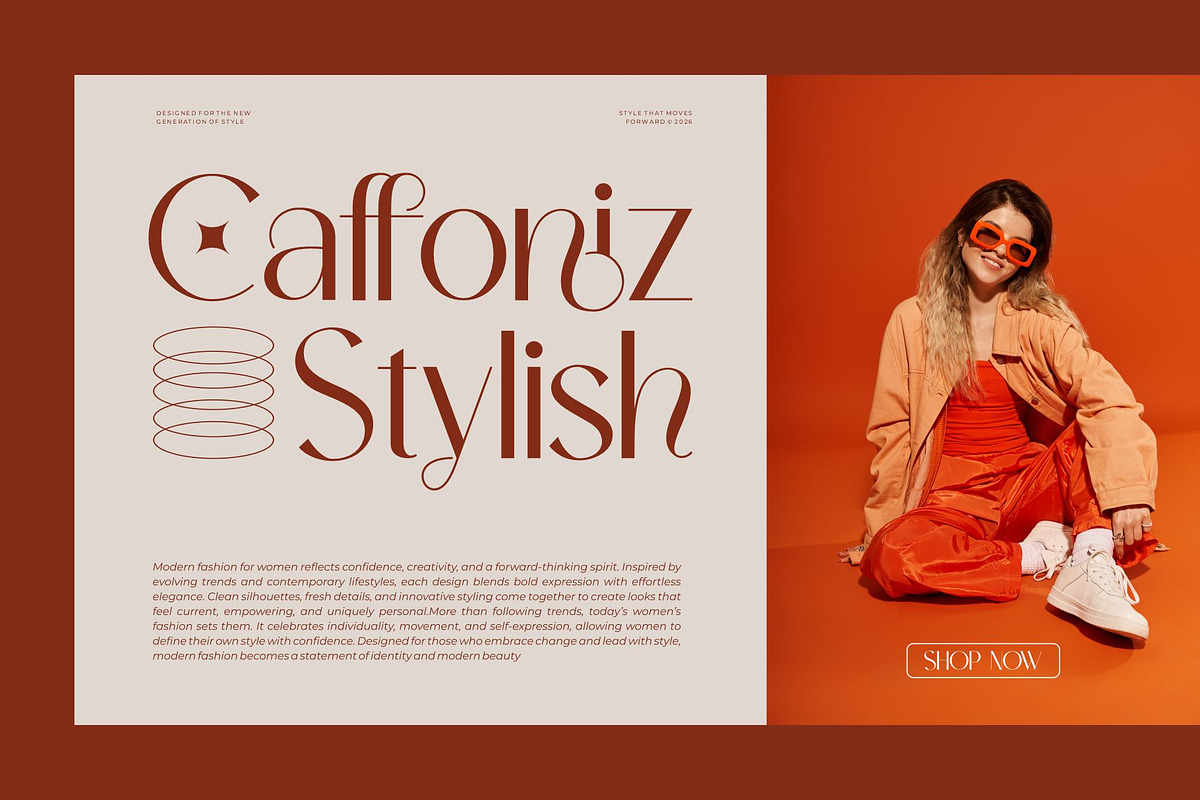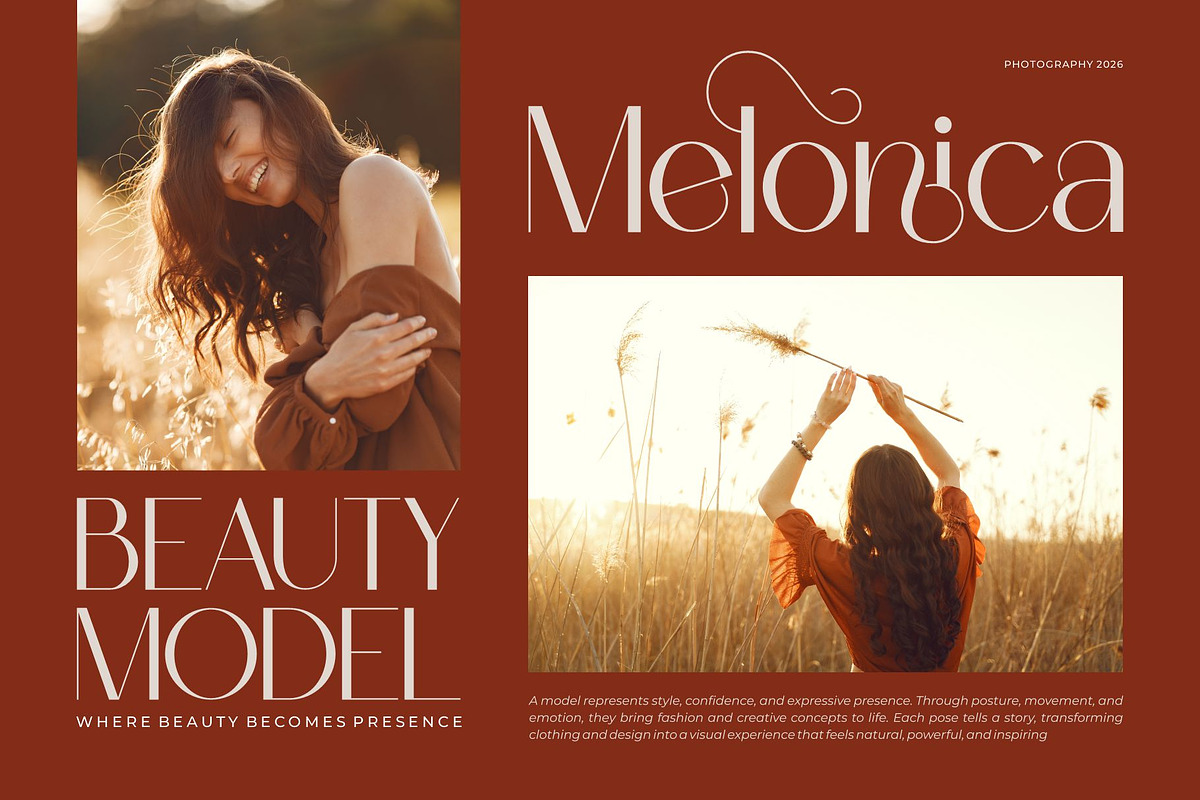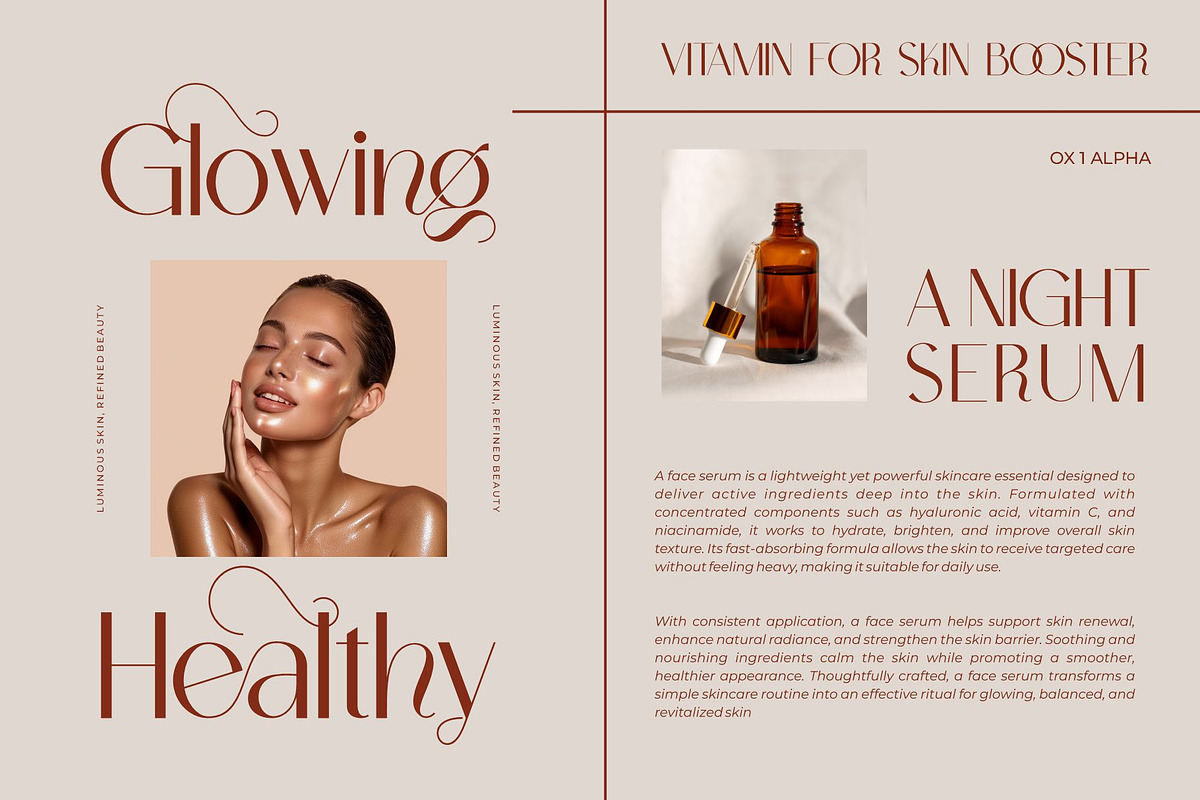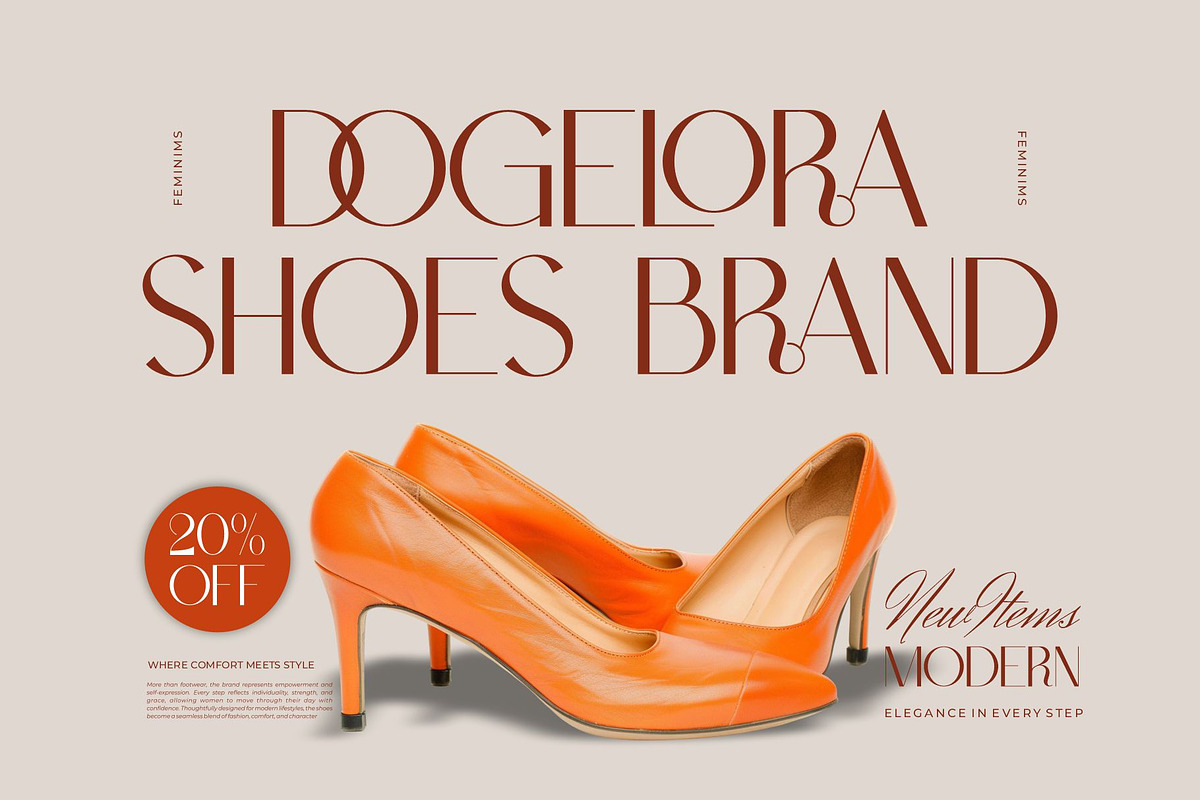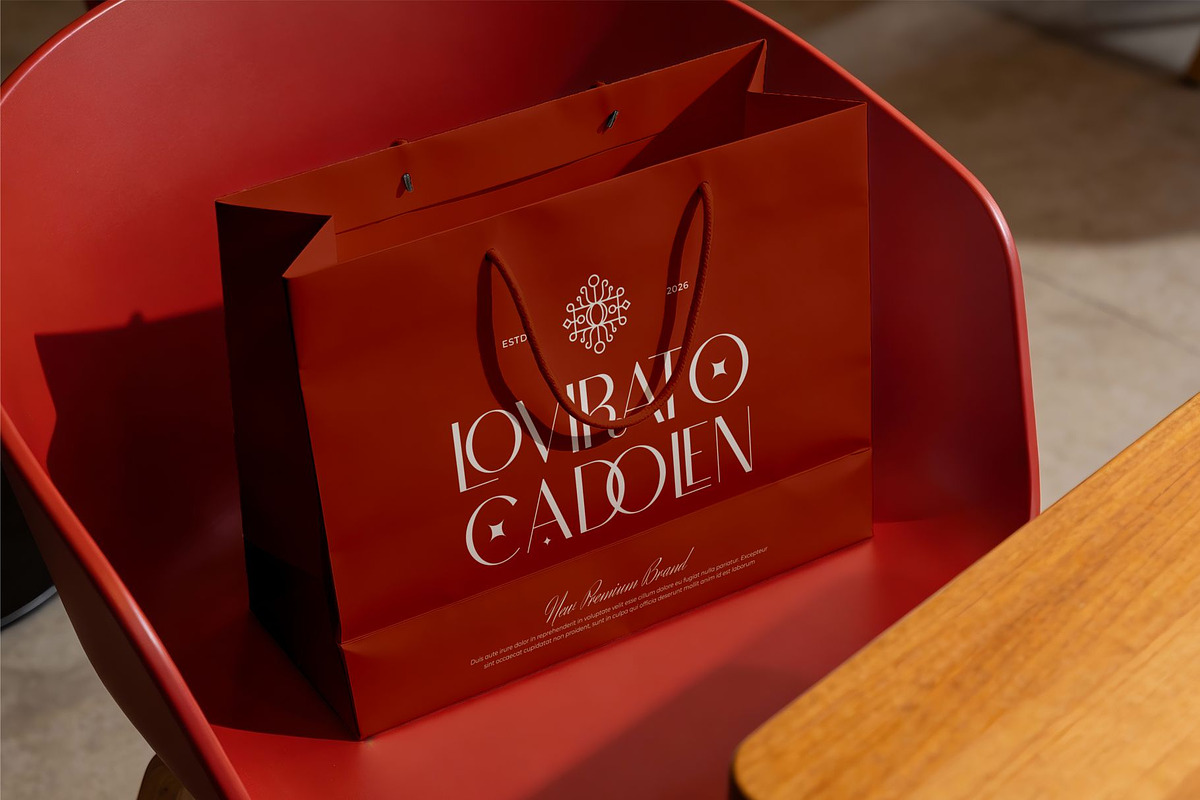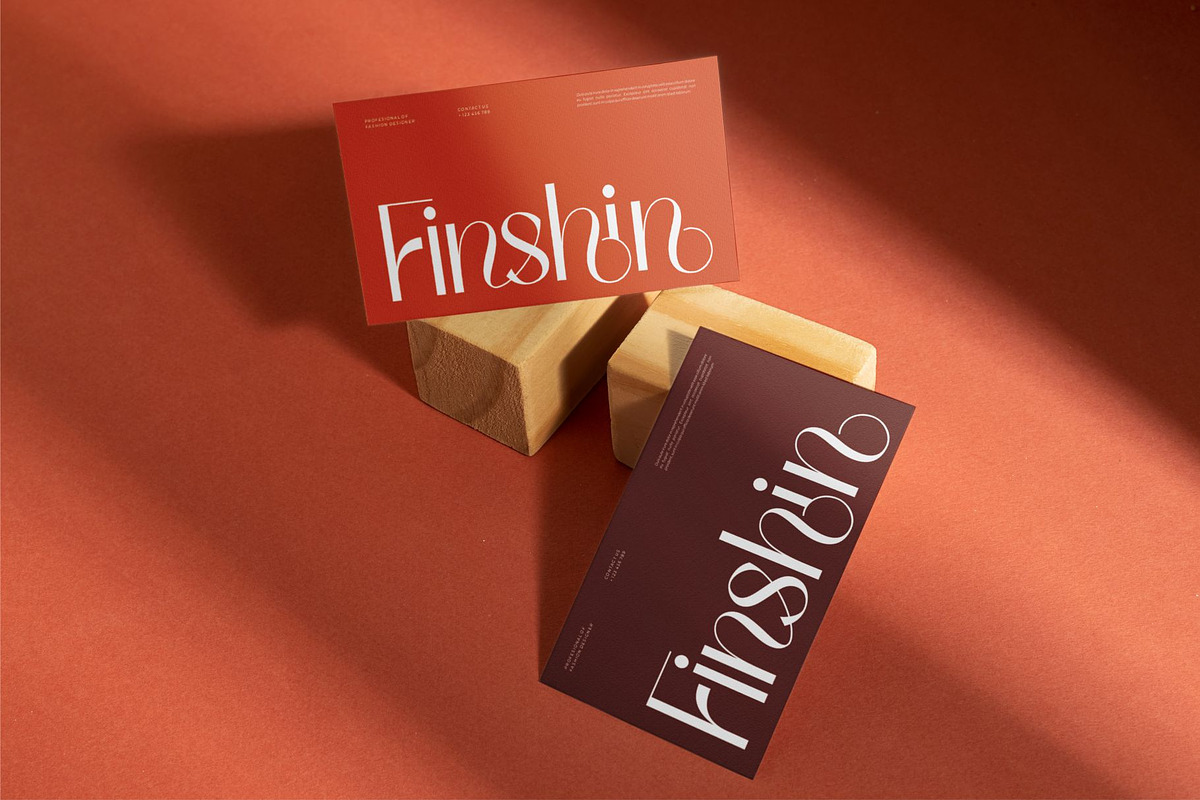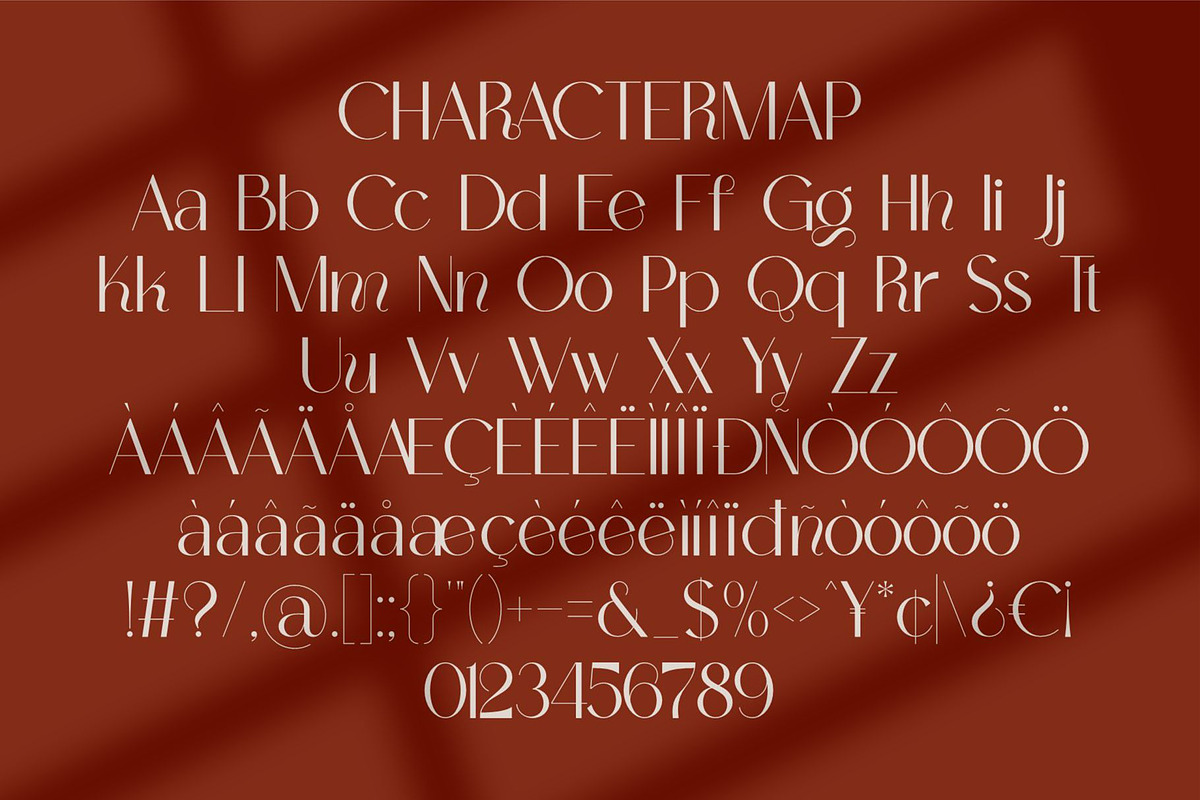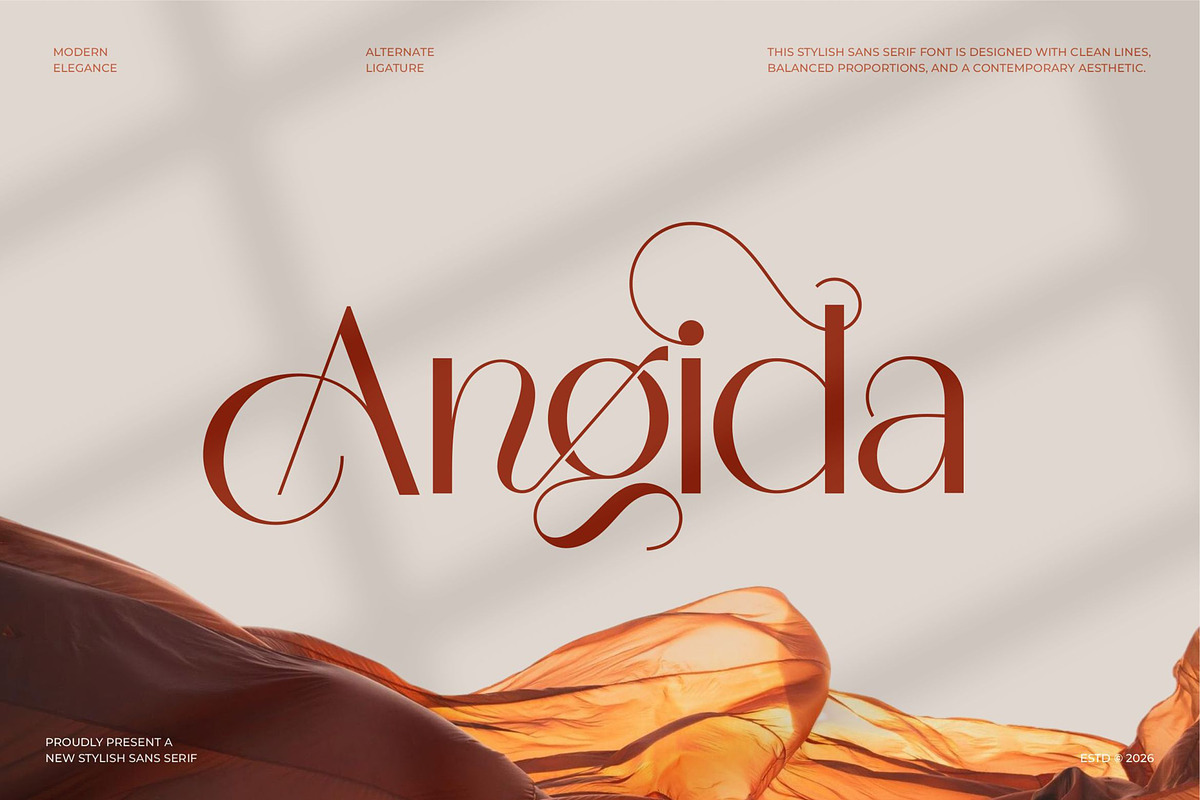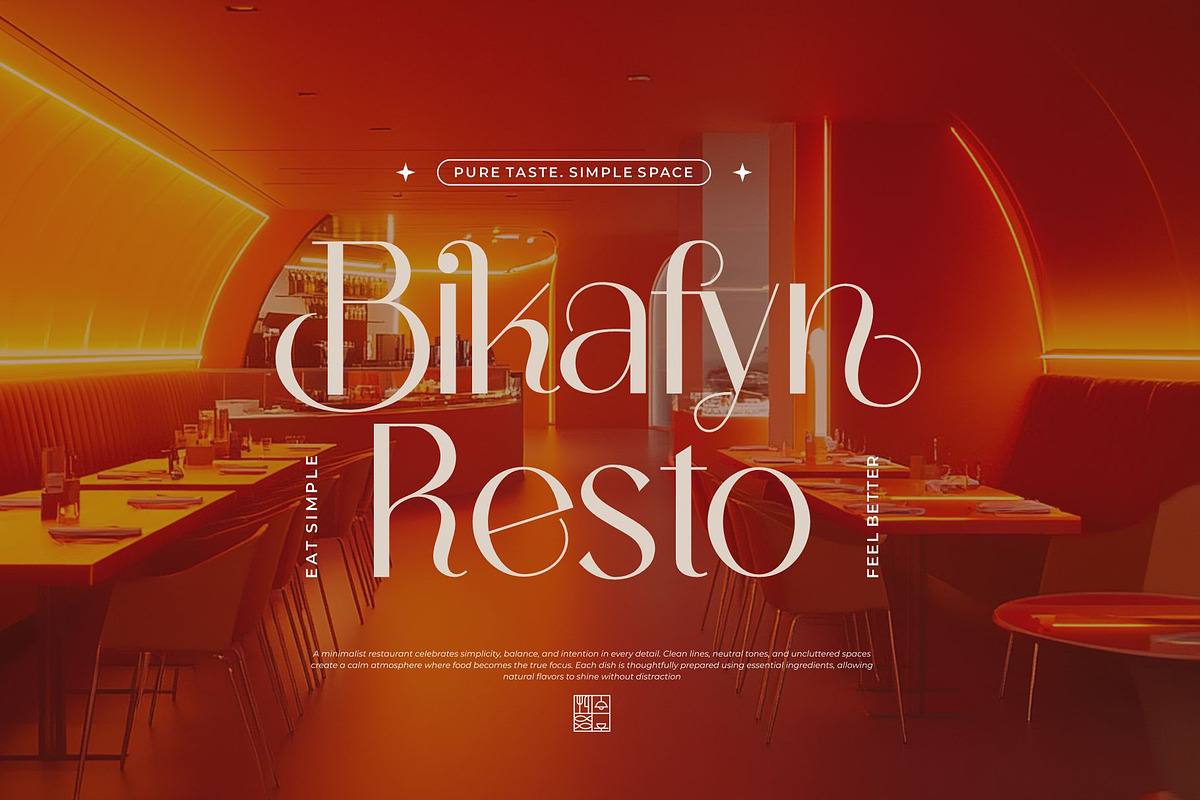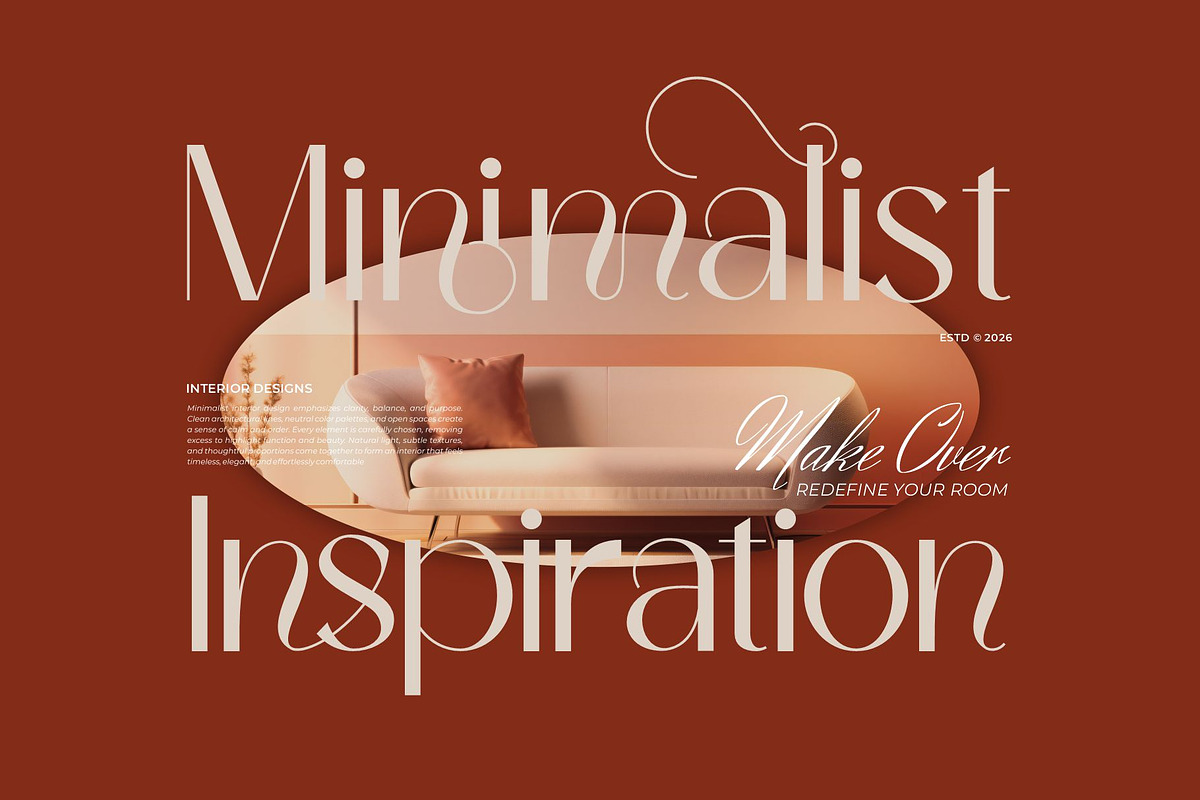
Angida || Modern Classy Sans Serif
angida sans serif is a modern and classy font type for all branding and logo designs. This modern and classy sans serif font has a beautiful character. This font is suitable for invitation card designs, cool logos, movie titles, movie names, business cards, book titles, brand names, and various other designs. angida sans serif is a smooth sans serif font that exudes sophistication and the moment. Its stylish ligatures make this font a perfect partner for any project.